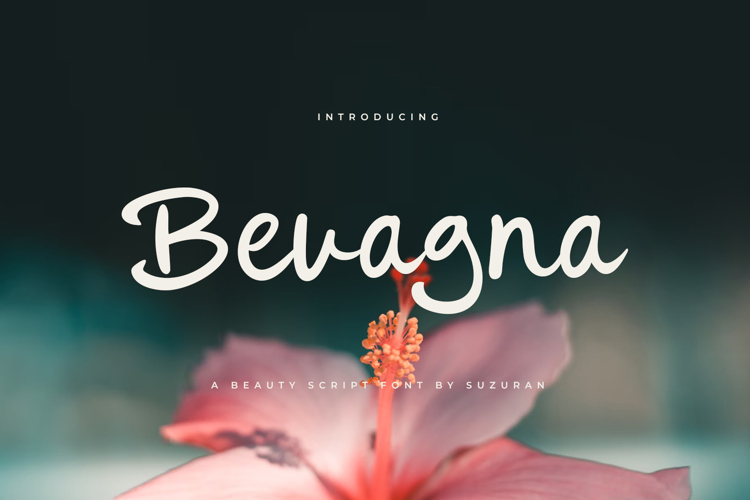
Introducing the Bevagna script, a font that is very fresh and unique style script font for your design project. Bevagna script is perfectly suited to logo, stationery, poster, apparel, branding, wedding invitation, card, tagline, layout design, and much more !!.